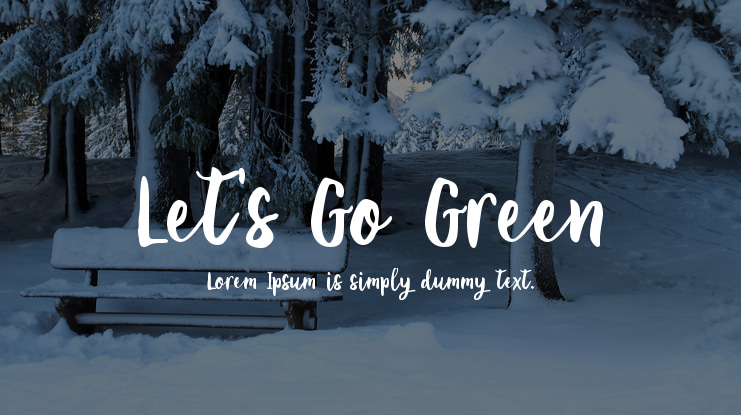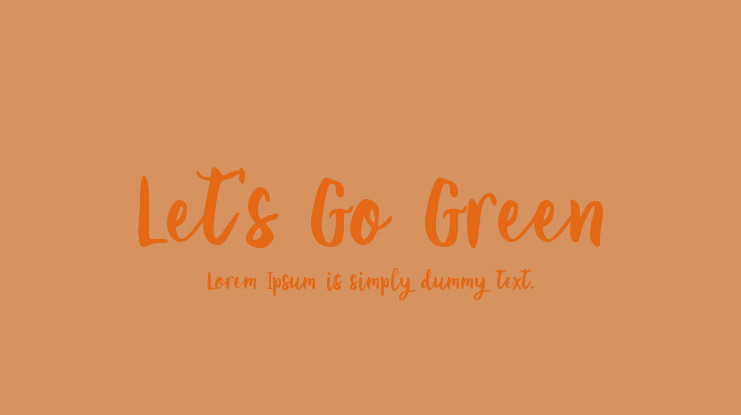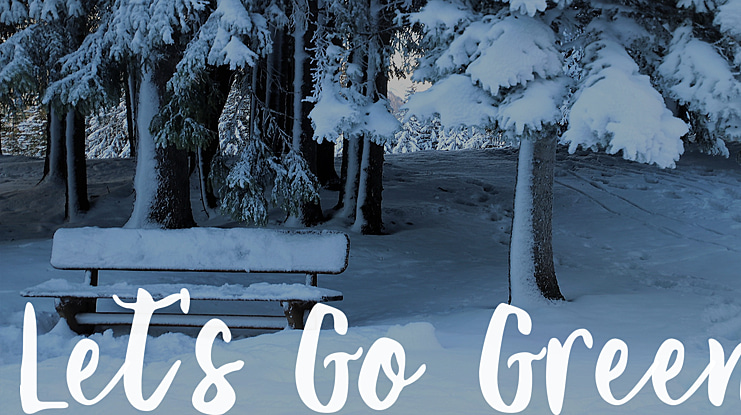
Let's Go Green Font
Eko Kurniawan | Letteratom™
Let’s Go Green is a natural and casual handwritten font! It was made with brush strokes and ink on a paper, this makes it unique and authentic. It is ideal for logos, quotes, packaging, advertising, social media and much more!